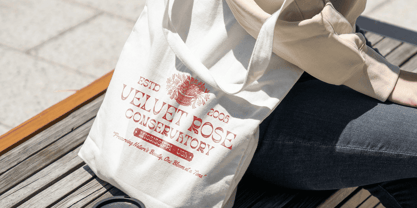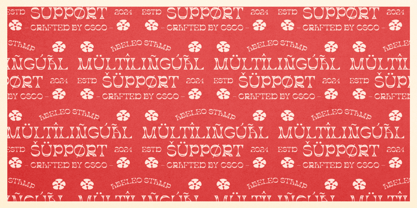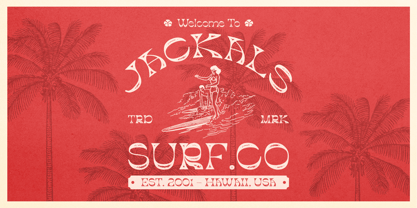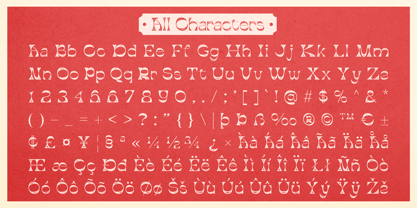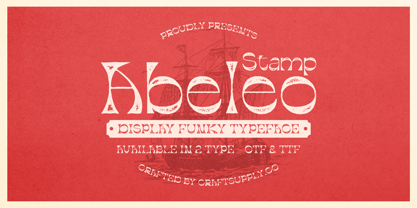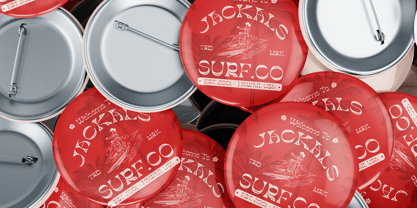
Abeleo Stamp
La familia tipográfica Abeleo Stamp fue diseñada por Trio Nazzar Saputra, Wahyu Hadi Yuana y publicada por Craft Supply Co. Abeleo Stamp contiene 2 estilos y opciones de paquete familiar. Más información sobre esta familia
Abeleo Stamp Font: Funky Reverse Contrast with Vintage Tactility
Display Font with Reverse Contrast
Abeleo Stamp is a display font that features a striking reverse contrast design, where thick strokes are contrasted with thin counters to create a uniquely funky and eye-catching appearance. This unconventional approach to letterform design adds a distinctive visual twist, making the font stand out in any application.
Rugged Stamp Effect for Retro Charm
Enhanced by a rugged stamp effect, Abeleo Stamp incorporates a textured finish that evokes a tactile, vintage quality. This stamp-like texture adds depth and character to the font, infusing it with a retro charm that enhances its playful and unconventional nature. The combination of reverse contrast and stamp effect results in a font that exudes both creative flair and nostalgic appeal.
Ideal for Attention-Grabbing Creative Projects
Perfect for designs that aim to capture attention, Abeleo Stamp is ideal for a wide range of creative applications. Whether you’re working on promotional materials, posters, or branding projects, this font brings a dynamic, standout quality that combines playful design elements with a distinctive, tactile finish. Its unique blend of reverse contrast and vintage texture ensures that your designs will make a memorable impression.